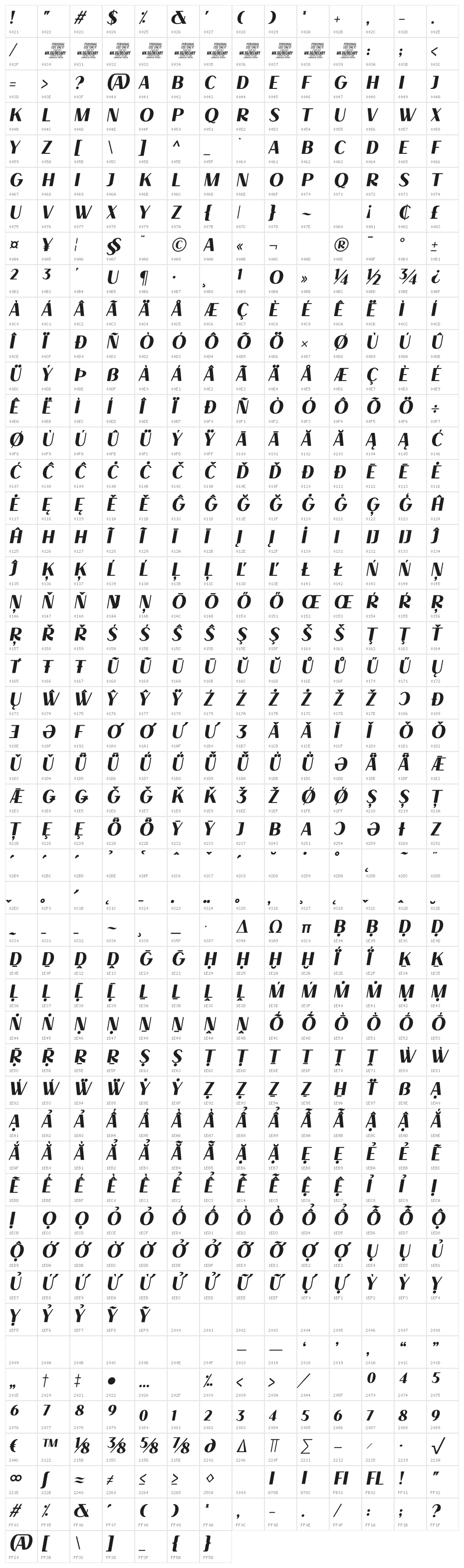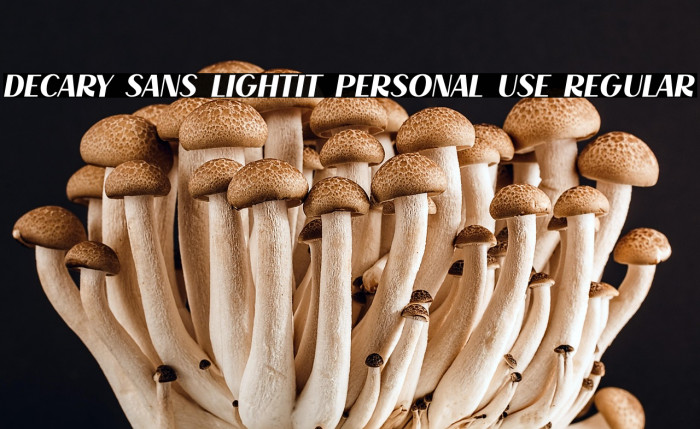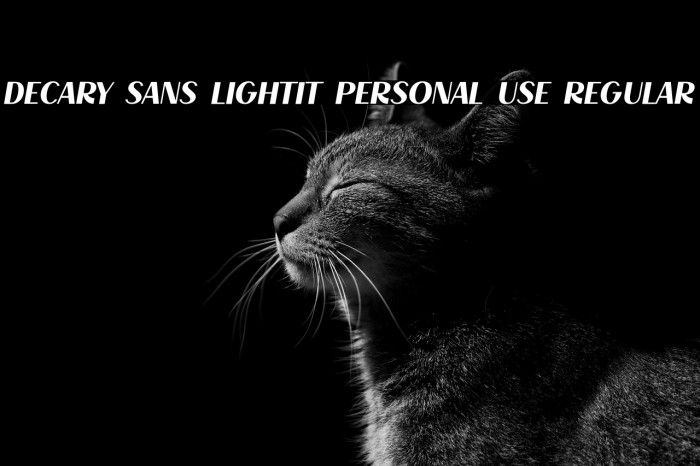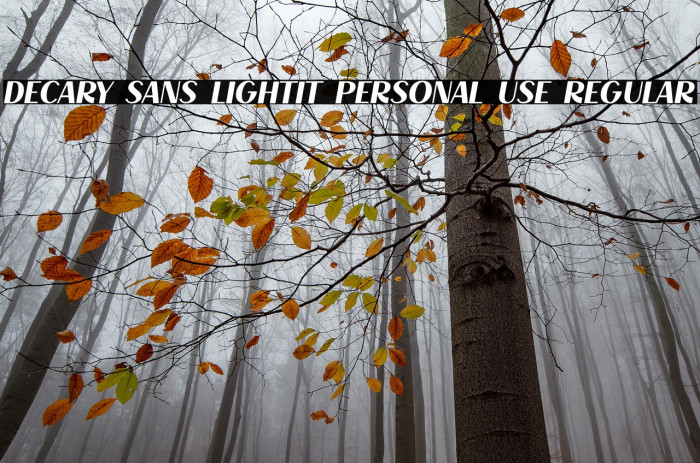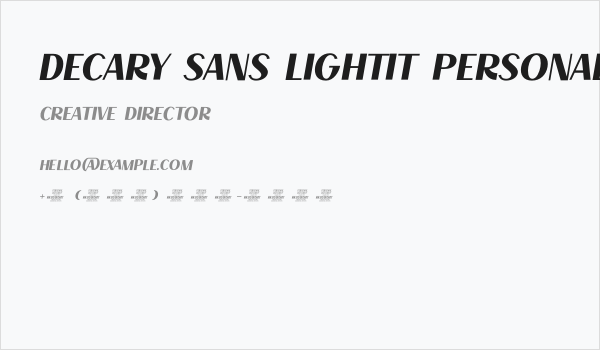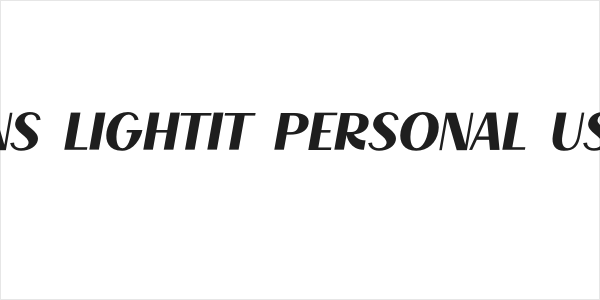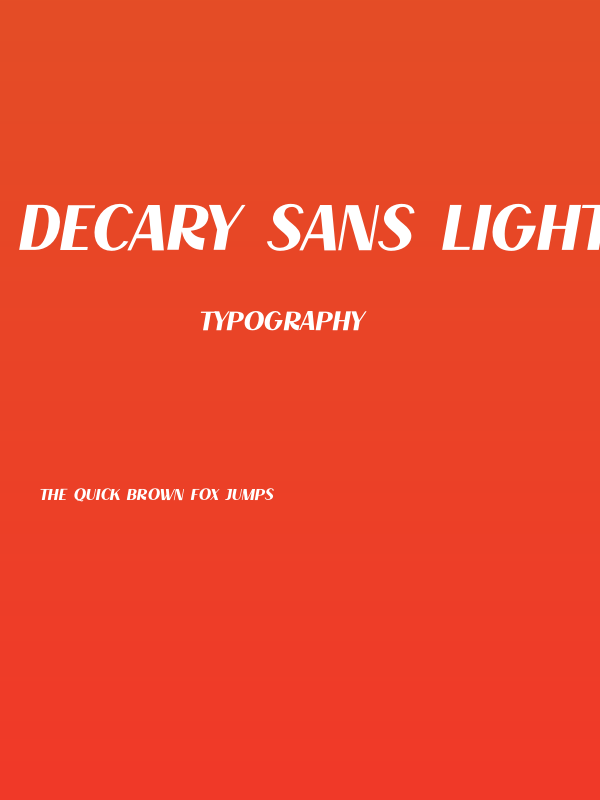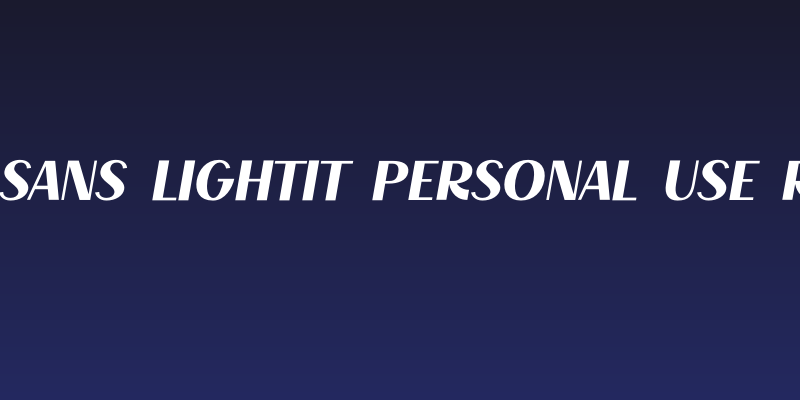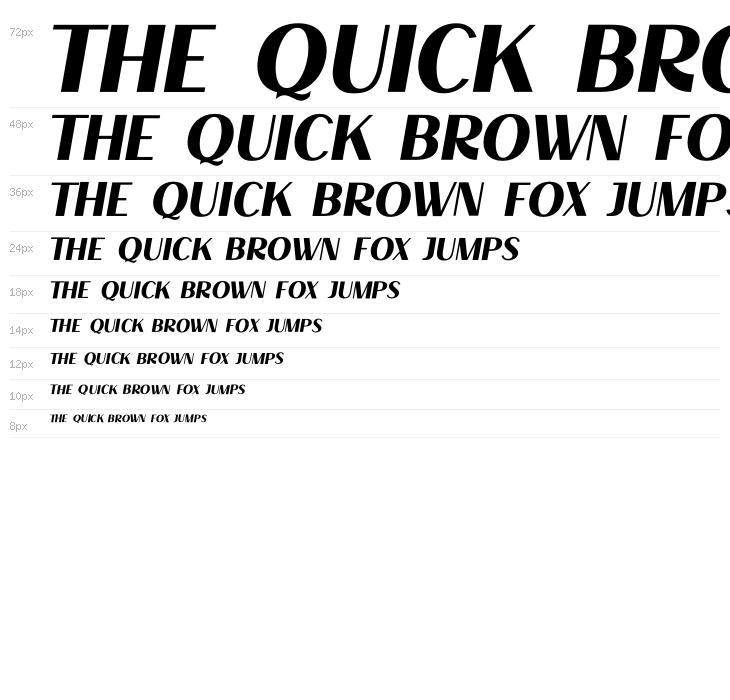
Decary Sans LightIt PERSONAL USE Regular Font
Decary Sans LightIt PERSONAL USE Regular Description
This font features a sleek and modern design with a distinct italic slant, giving it a dynamic and forward-moving appearance. The characters are crafted with clean lines and a moderate contrast in stroke thickness, creating a balance between elegance and readability. The uppercase and lowercase letters maintain a consistent style, with slightly condensed proportions that enhance the font's contemporary feel. The numerals and special characters are designed to match the overall aesthetic, ensuring visual harmony across all text elements.
| Use Case | Headlines, Logos, Editorial design |
| Proposed Projects | Ideal for branding, advertising, and editorial design projects that require a modern and sophisticated touch. |